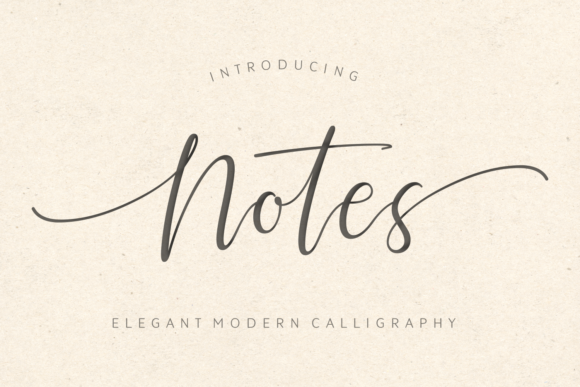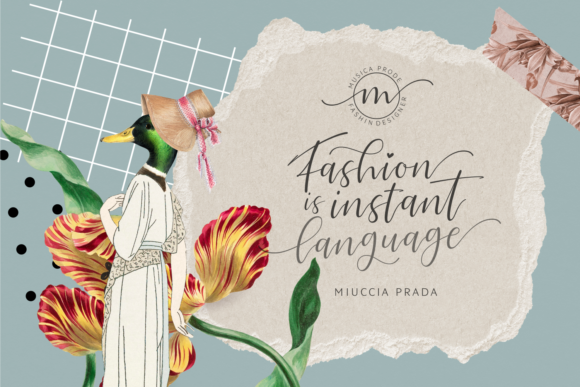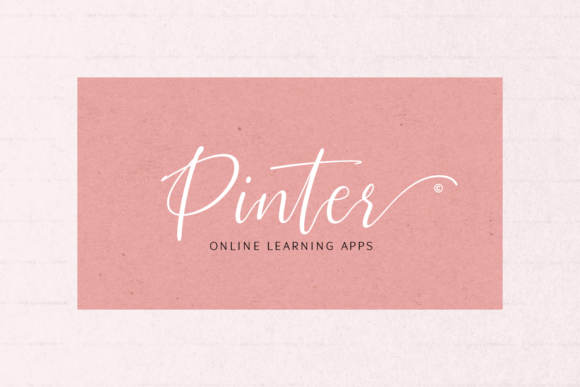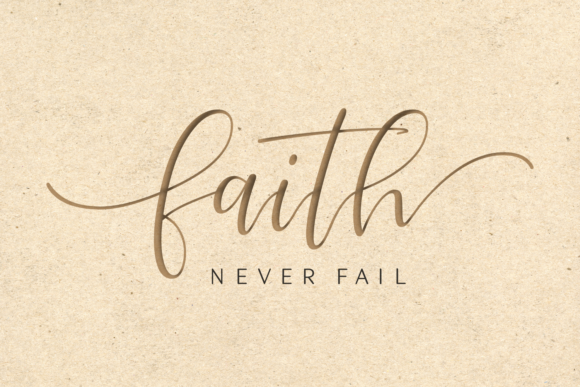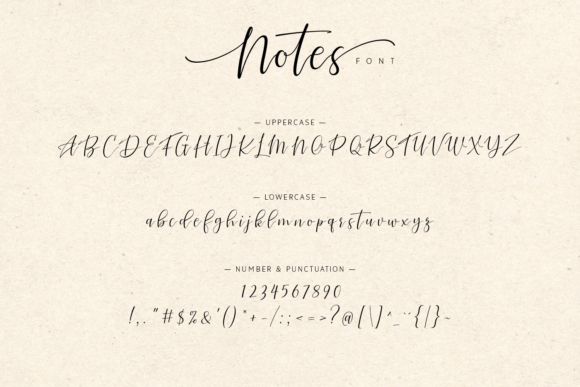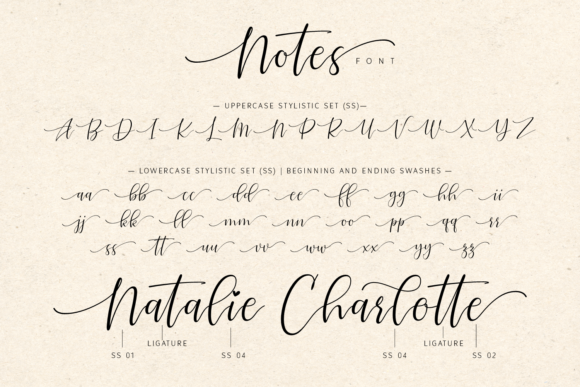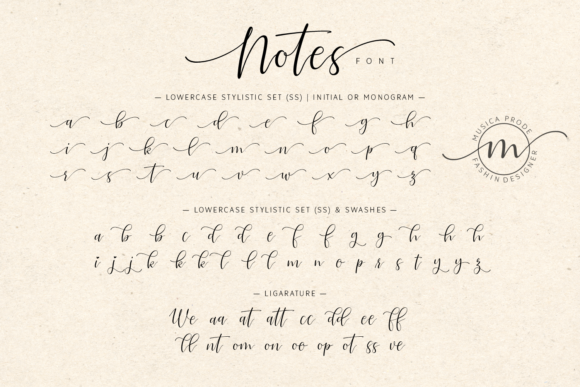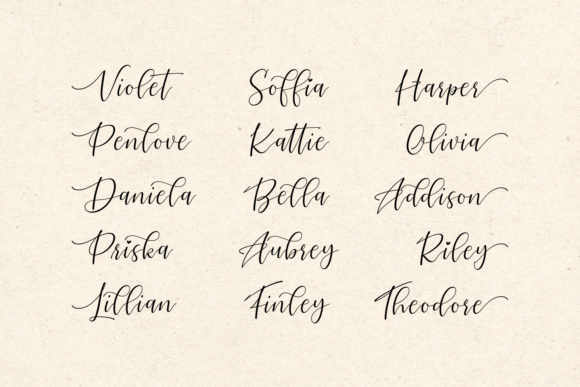
Notes Font
Notes feels equally charming and elegant. Fall for its ravishing style and use it to create gorgeous wedding invitations, beautiful stationary art, eye-catching social media posts, and much more!